Did you ever receive a handwritten letter? If so, you must remember how important the style of the handwriting was. It could tell you a lot about the personality of the sender, of the mood he was in when he wrote the letter. Whether he rushed into writing it or he took his time.
You could even tell if the sender was creative or impatient. Basically, your handwriting is your message’s signature, its body language. And you wouldn’t read an incomprehensible letter, or you wouldn’t pay much attention to one that clearly did not have much interest put into, would you?
Now, imagine that when it comes to ads, the writing is as important as in a handwritten letter. If the one that sees the ad doesn’t understand what you’re saying because of your font, you’re in big trouble.
We’ve found another analogy we loved about choosing fonts in Smashing Magazine.
“For better or for worse, picking a typeface is more like getting dressed in the morning. Just as with clothing, there’s a distinction between typefaces that are expressive and stylish versus those that are useful and appropriate to many situations.”
We’ve seen many examples of poorly designed ads throughout our online experience, and that's the reason why we decided to write an article that emphasizes how important fonts are in social media ads.
Did you know that last year, advertising on the internet surpassed newspaper advertising spending for the first time? Marketers spent over $5 billion on social media ads in 2013 and it is expected to go over $14 billion by 2018. Paid advertising becomes more and more competitive and expensive, but it’s worth it since social media advertising is definitely a great solution to get leads and customers. Text is a very important part of a successful ad, and this can be proven by the changes Facebook made this year. Advertisers had a hard time struggling with Facebook’s 20% rule, which said that text couldn’t occupy more than 20% of the image submitted. In April, when Facebook eliminated this rule, advertisers had a bitter-sweet moment thinking that this will solve all their problems, but social media success isn’t just about text or design. It’s about the whole mix between all these.
Let’s see which are the things you need to take into consideration when choosing a font for your Social Media Ads:
If you want to sell products badly, you probably won’t be using large, bold, grungy fonts. You need to adapt the style of your copy according to the product or service you’re promoting, and more importantly to what you expect from that ad to do. Do you want to sell with your ad or do you only want to raise awareness? Do you want people to engage with it or you only want them to click on the link? The ad is the bridge between the landing page or blog post and the user.
Let’s take this ad for example. It announces that the club is moving to a different location. The designer played with the graphics and the font in order to introduce people who love the club to the news.
You need to follow the brand guidelines and tone of voice. If the brand has always used small caps in their communication, you should do the same too. If it’s a brand that is always friendly in its communication, has a perky tone of voice you will have to adjust your design according to that.
We’re always bringing the audience into the discussion, but that’s only because it’s one of the most important (if not the most important) part that should interest us when designing an ad.
Before starting to look for fonts, make a short research on to whom will the message get to. Is your audience formed by millennials? Is it formed by older people?
Just like fashion, typography has its trends too. For example, a few decades ago serif fonts were the hot thing of those times.
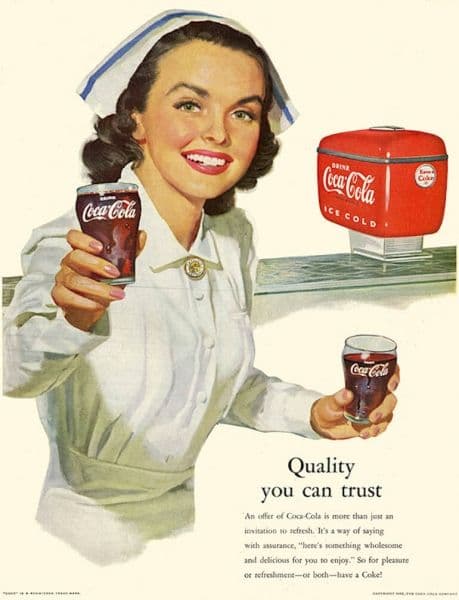
That's why your grandparents (applause for the older people on the Internet, please!) would probably be more tempted to click on an ad that’s written in serif – because it looks familiar. On the other hand, you and I grew up with sans-serif fonts and we’re tempted to like more simplistic and minimal fonts. Hand lettering fonts are always in trend for some types of ads or products. We made a quick research for you and found out which are these years trending fonts:
Montserrat – https://www.fontsquirrel.com/fonts/montserrat
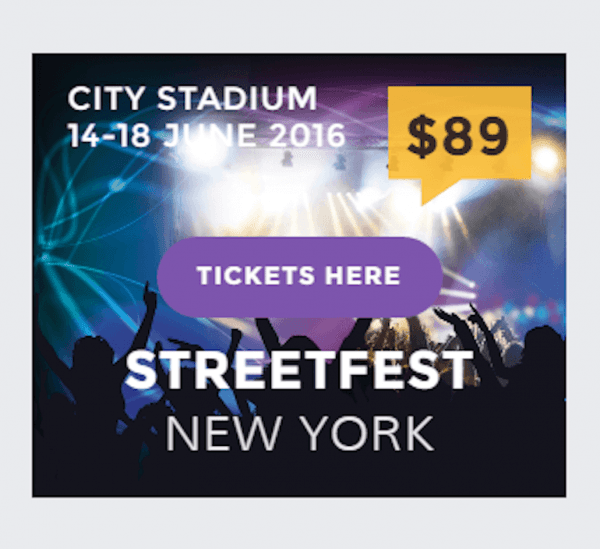
Open Sans – https://www.fontsquirrel.com/fonts/open-sans
Lato – https://www.fontsquirrel.com/fonts/lato
Amatic – https://www.fontsquirrel.com/fonts/amatic
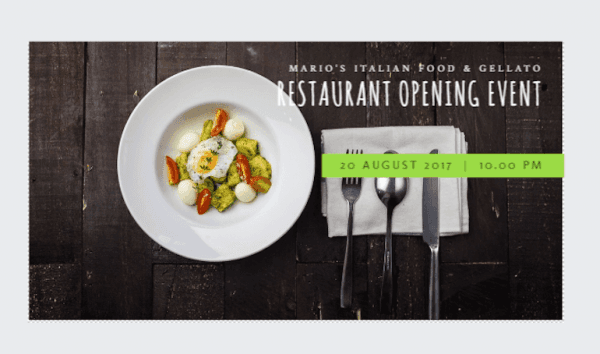
Lobster – https://www.fontsquirrel.com/fonts/Lobster
Playfair Display – https://www.fontsquirrel.com/fonts/playfair-display
Roboto Slab – https://fonts.google.com/specimen/Roboto+Slab
(list carefully curated by our awesome designer, Gery Meleg)
There are another two very important ingredients you need to take into consideration when looking for the right font for your social media ads. The first one is readability – if the user you’re targeting can’t read what you’ve written on your ad, you just threw money out the window. Make sure no matter what type of font you choose, it can be easily read and understood.
The other very important ingredient is reminding yourself that Social Media is a ginormous universe, in which everybody wants a piece of attention from the users. That’s the reason why your font must go hand in hand with your design and brand’s identity. All these, put together, form the recipe for a successful social media ad, that stands out of the crowd and fulfills its purposes. That is why in The Brief we give you the possibility to upload your own fonts.
If you want to know what’s the correlation between psychology and fonts. It’s interesting to see how fonts can impact the way people feel when reading them.
And don’t forget the most important thing you need to know and designer’s well known ‘font-non-grata’: NEVER USE COMIC SANS.